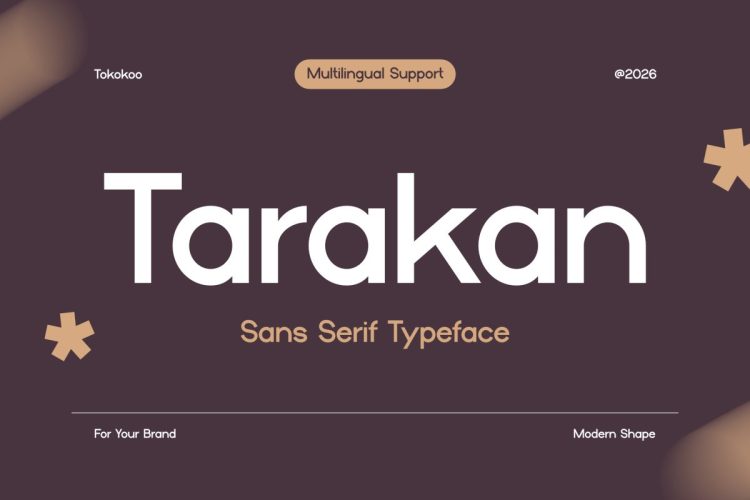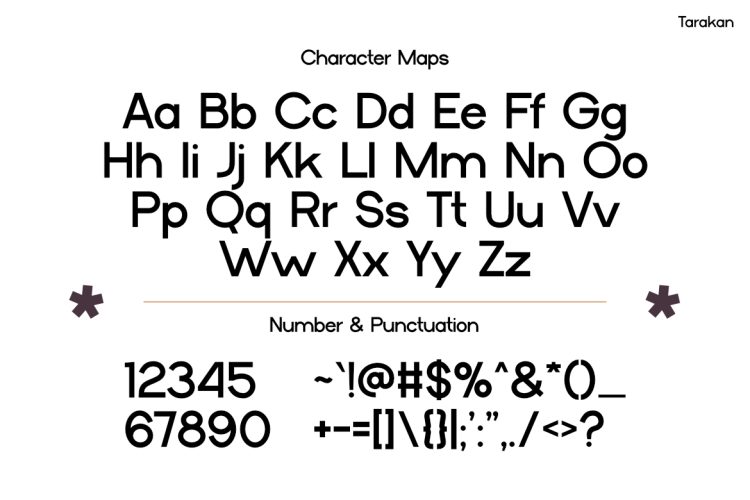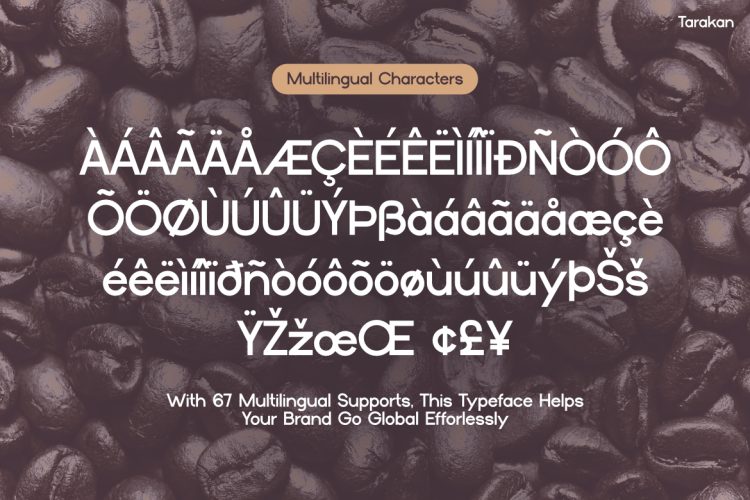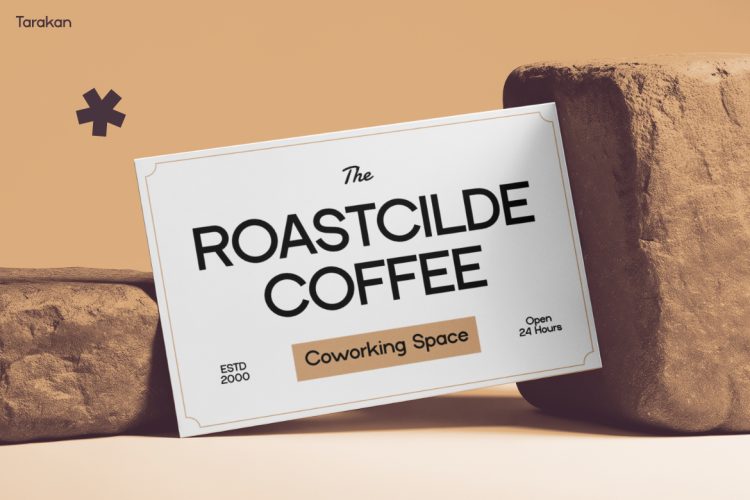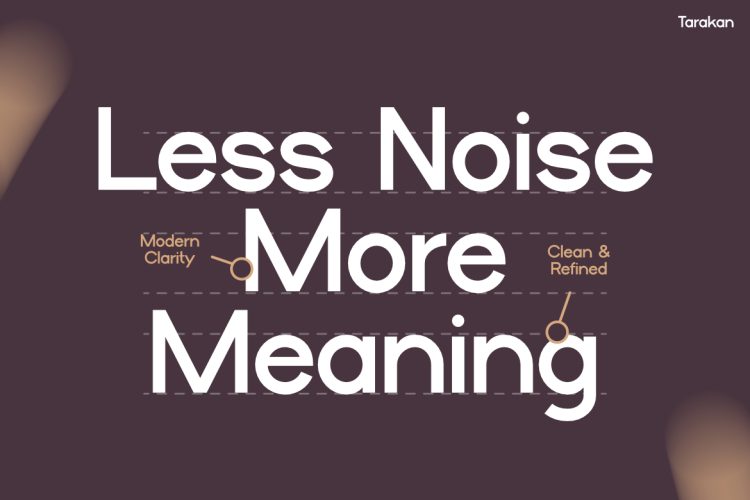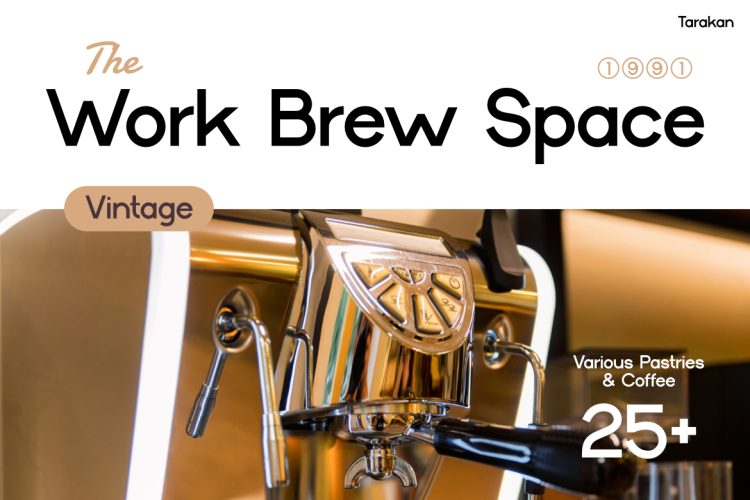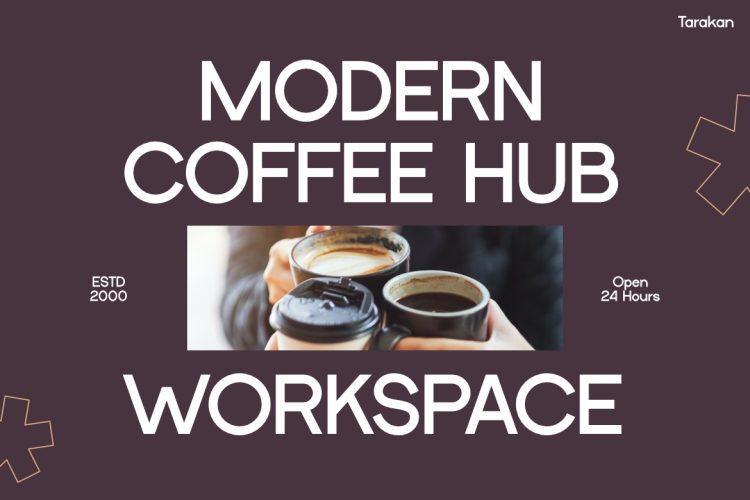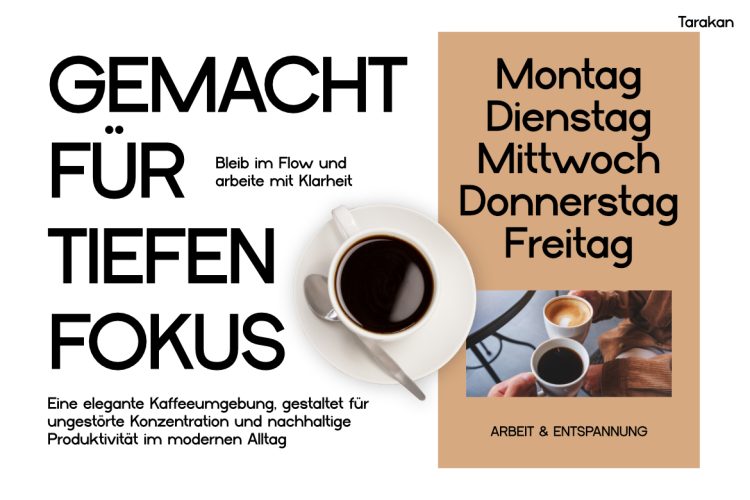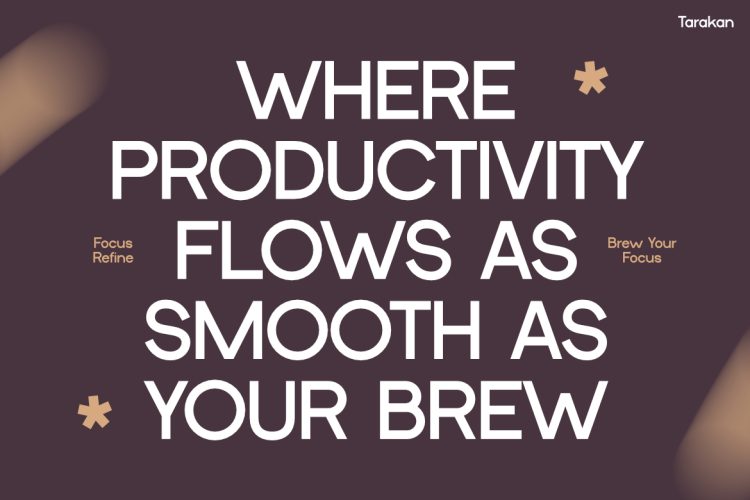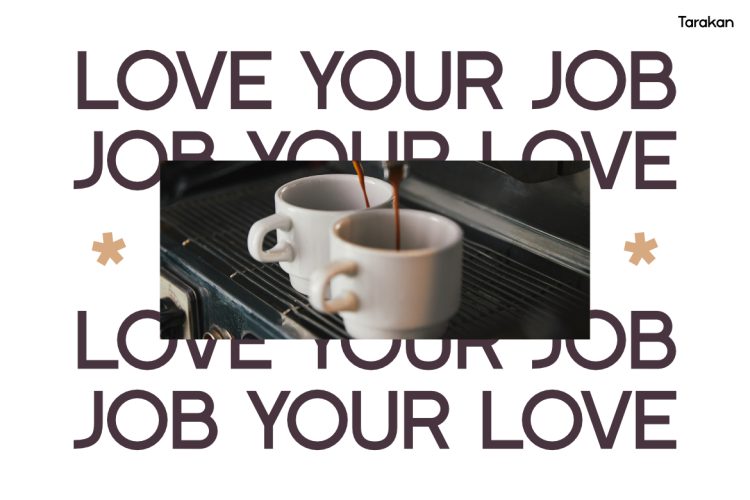
Tarakan โ Modern Clean Font for Stylish Content
Instagram Font Tarakan is a sleek and modern sans serif typeface designed to elevate your visual content with a clean and professional look. At first glance, its minimalist structure and balanced letterforms create a calm and sophisticated aesthetic. Moreover, the smooth curves and geometric shapes give it a contemporary feel that works beautifully across digital platforms. Because of its clarity and simplicity, the font enhances readability while still maintaining a stylish presence. In addition, Tarakan supports 67 languages, making it highly versatile for global use. As a result, it becomes a powerful tool for designers who want elegant, modern, and effective communication.
Instagram Font Tarakan is a versatile typeface crafted for clean, modern design needs. Not only does it offer a refined and professional appearance, but it also adapts easily to various stylesโfrom minimal layouts to bold branding. Furthermore, its well-balanced spacing ensures a smooth reading experience across both print and digital formats. Therefore, whether you are designing social media content, branding materials, or editorial layouts, Tarakan delivers clarity and sophistication. Ultimately, it helps your message stand out without overwhelming the design.
Because of its modern and flexible style, Instagram Font Tarakan is perfect for:
- Instagram posts, stories, and social media branding
- Business presentations and marketing materials
- Coffee shop branding and lifestyle content
- Editorial design, magazines, and blogs
- Product packaging and minimalist branding
- International projects requiring multi-language support